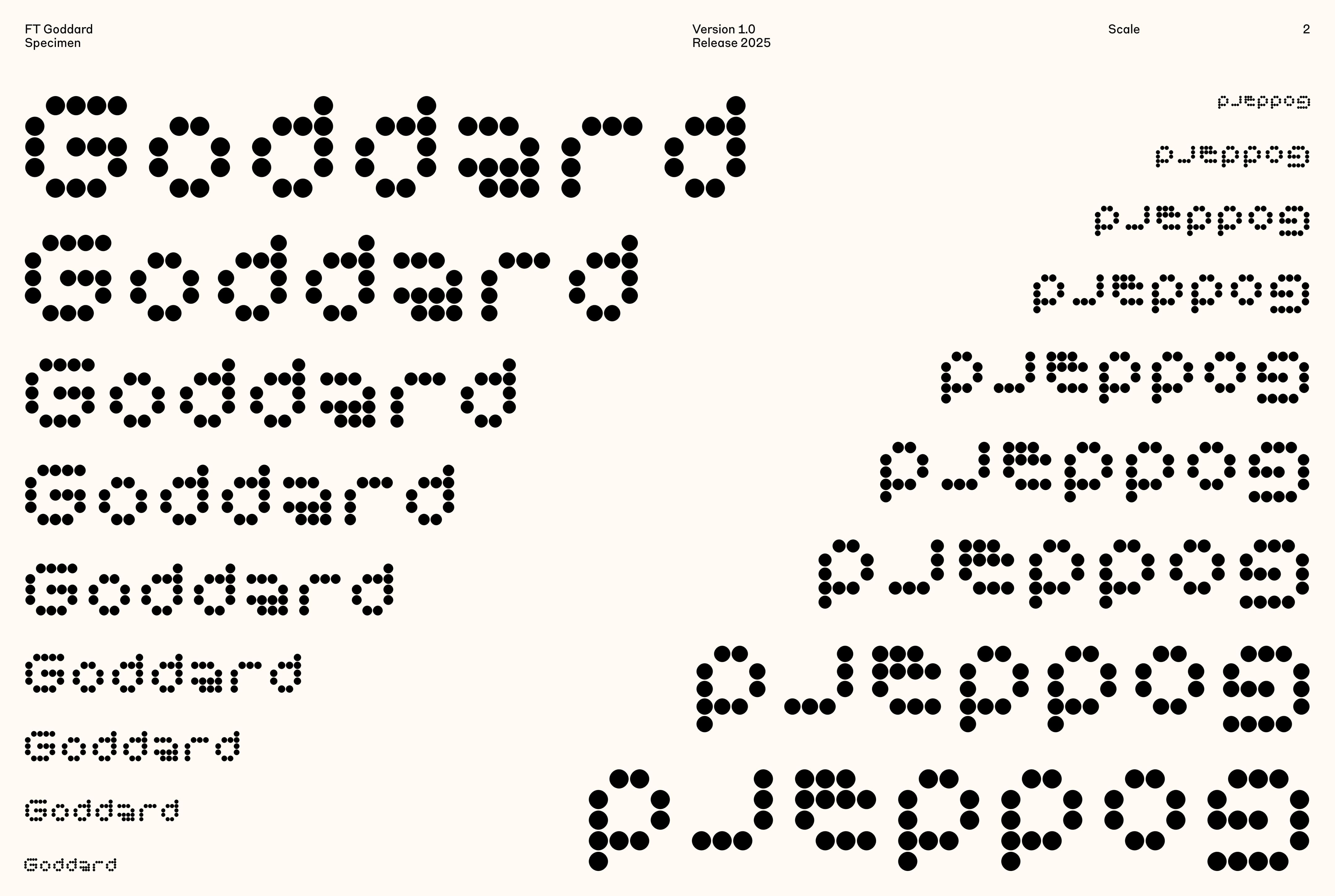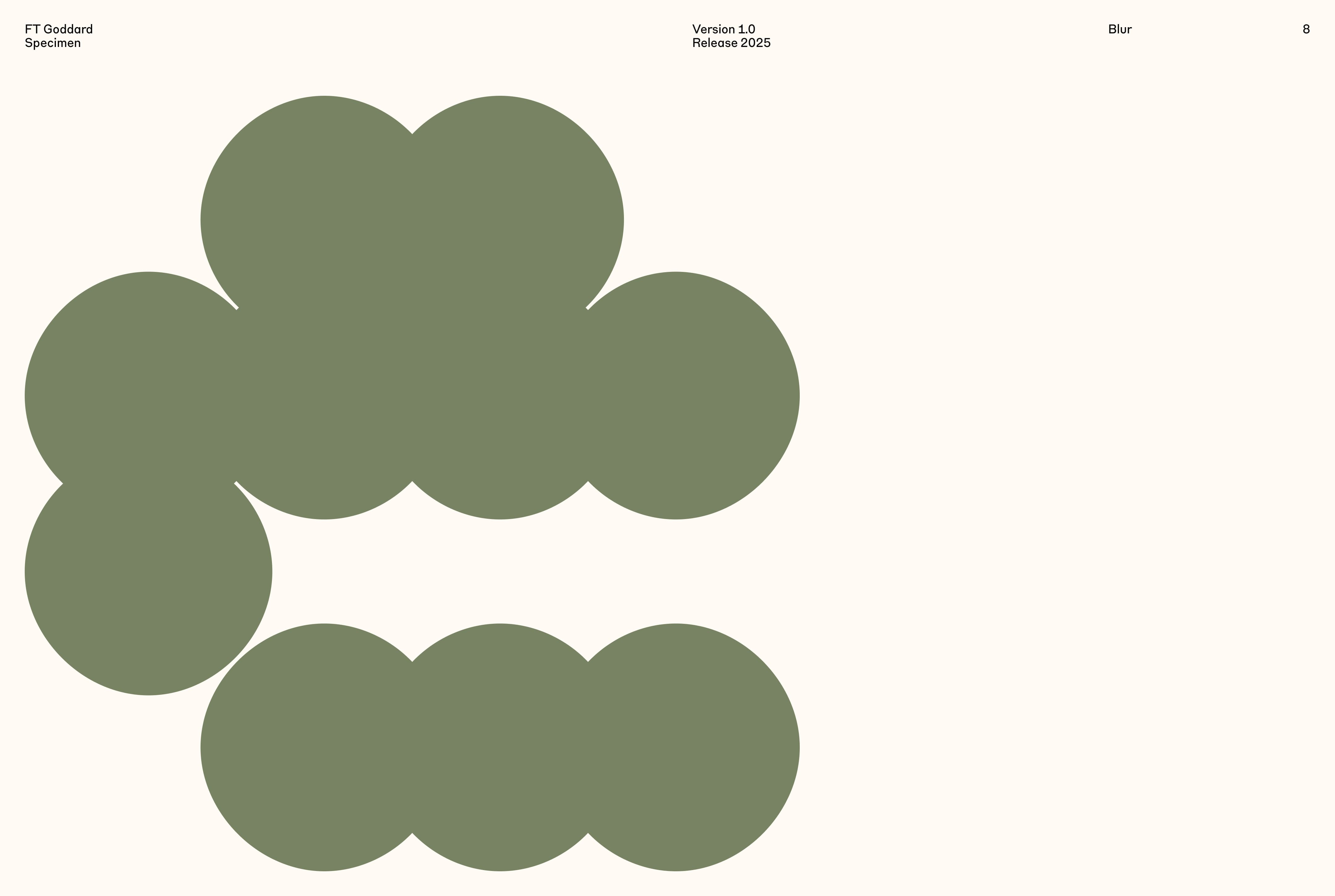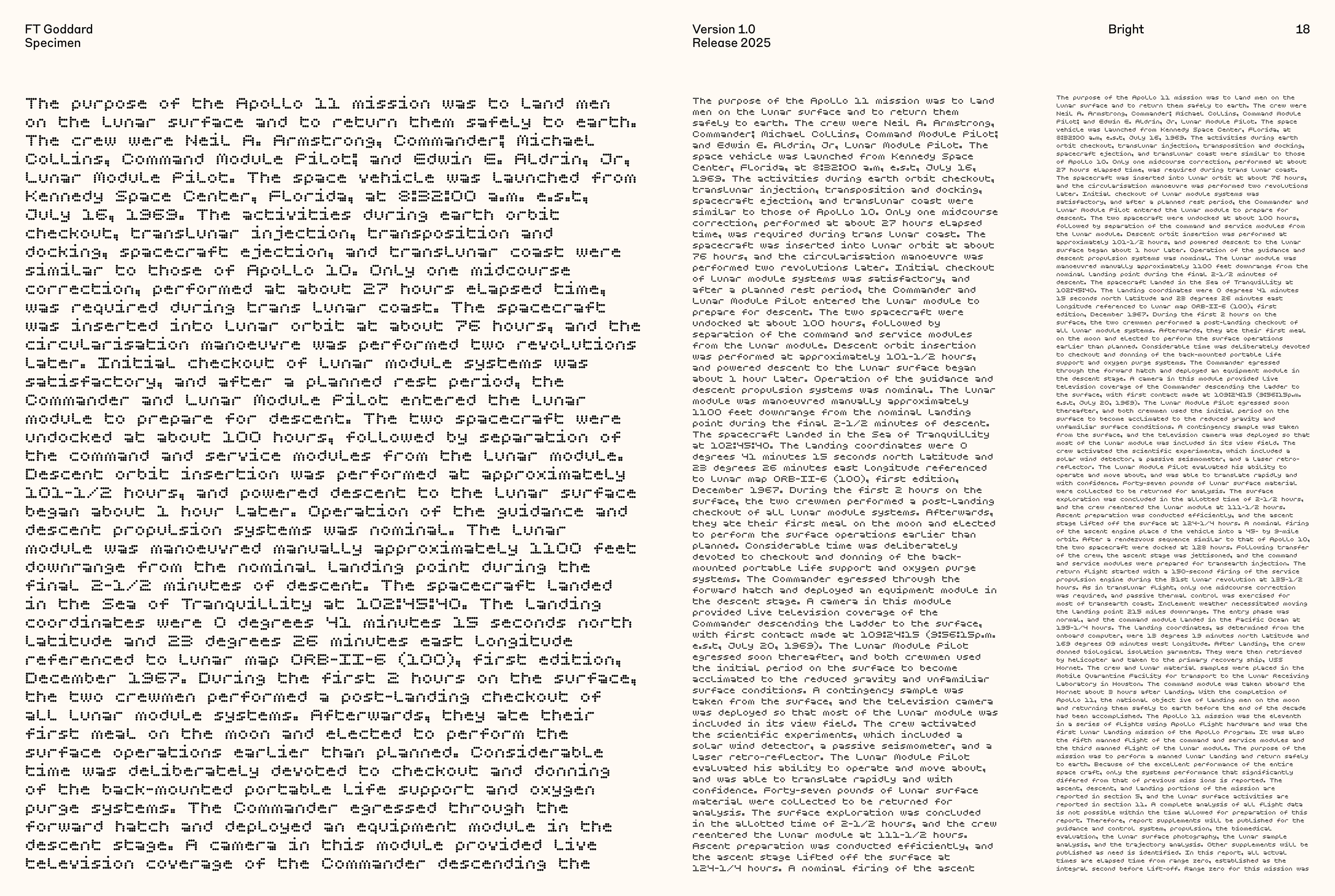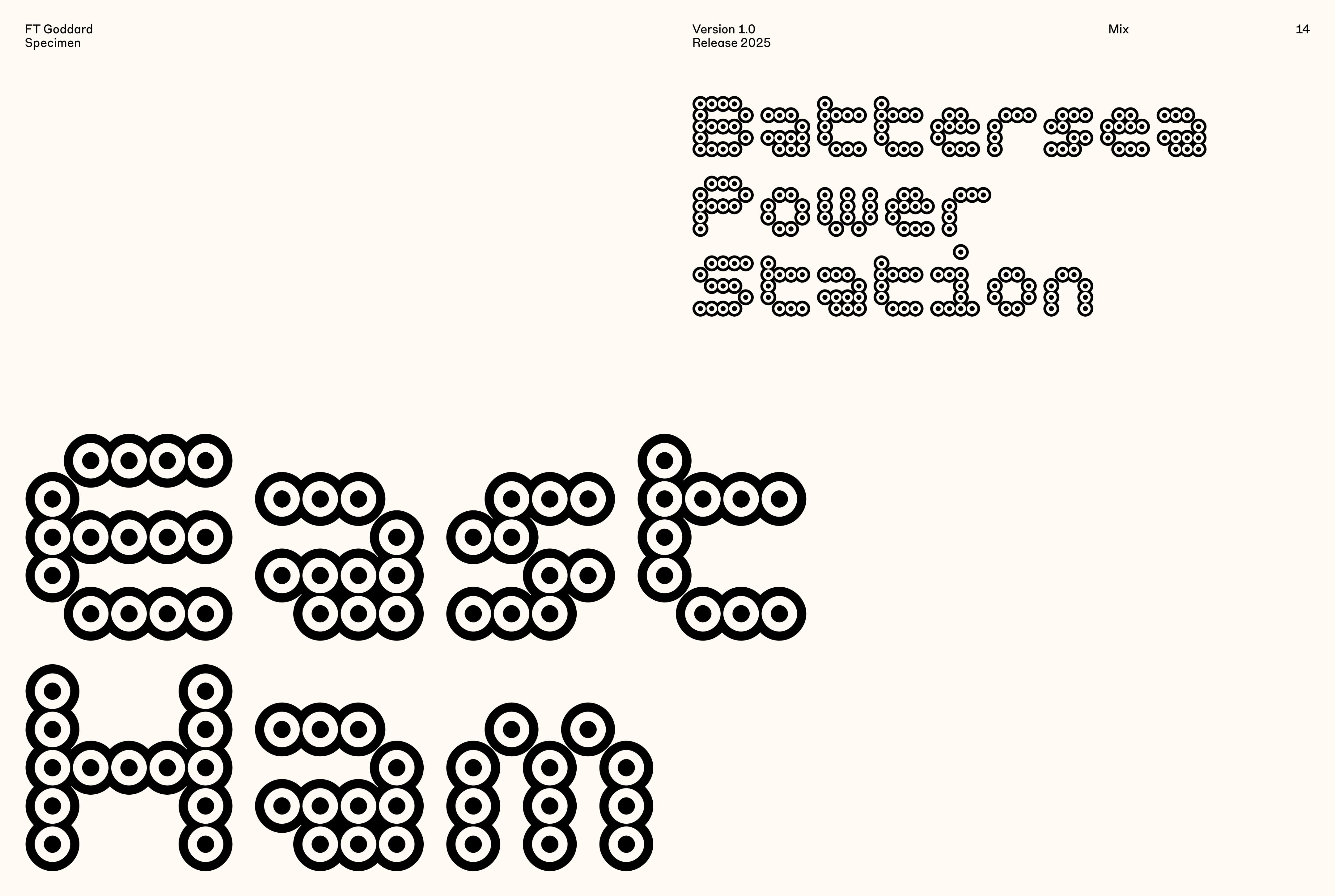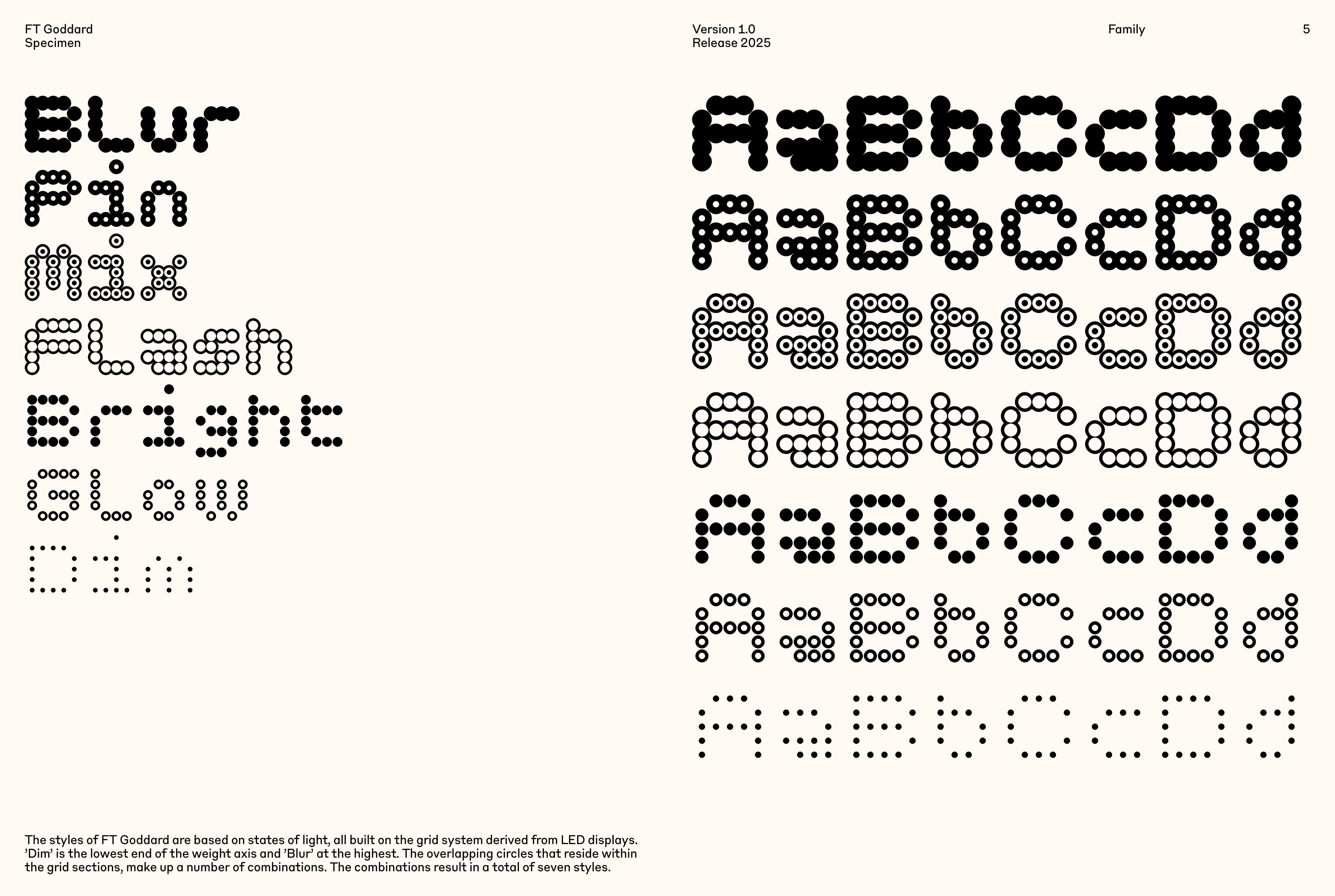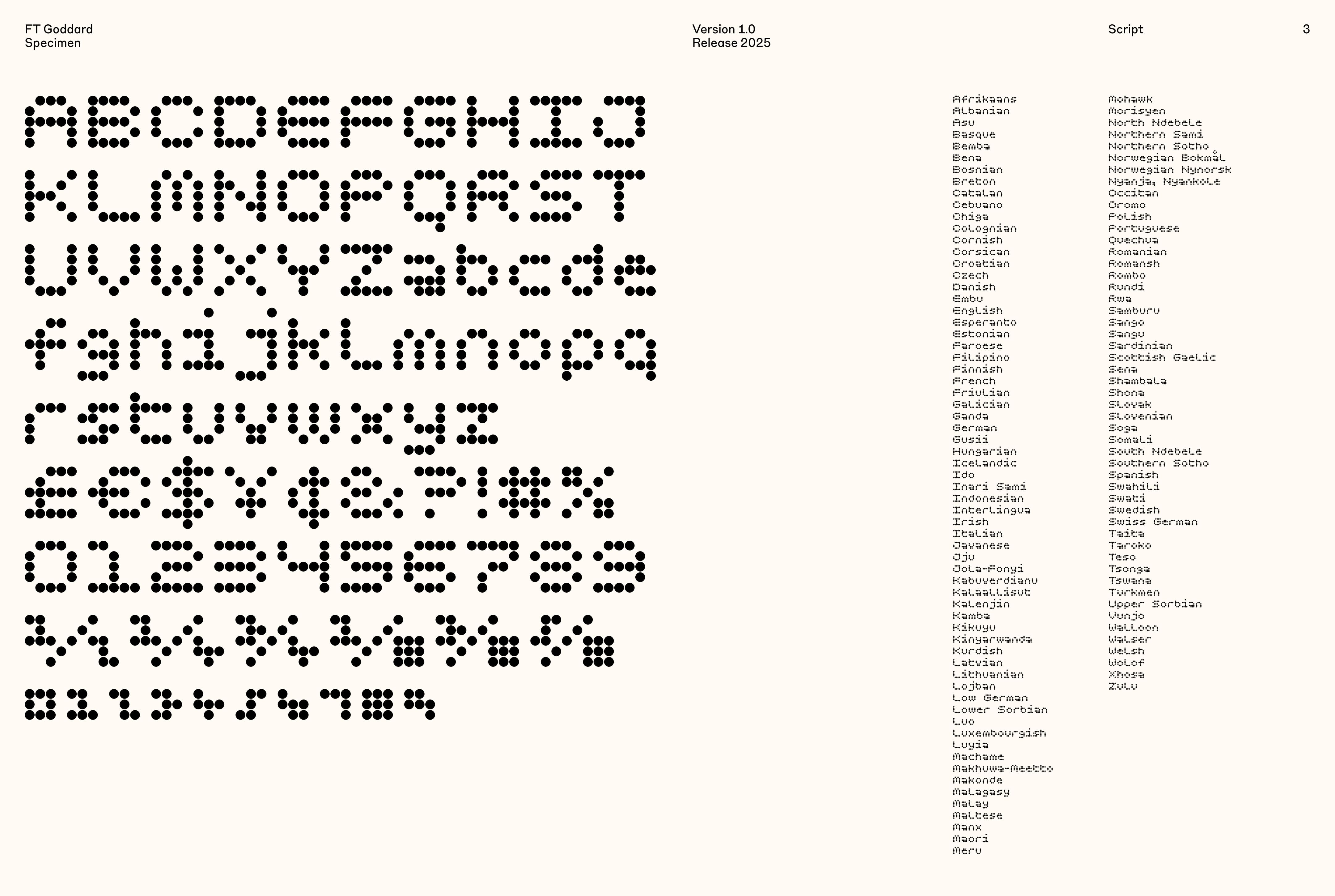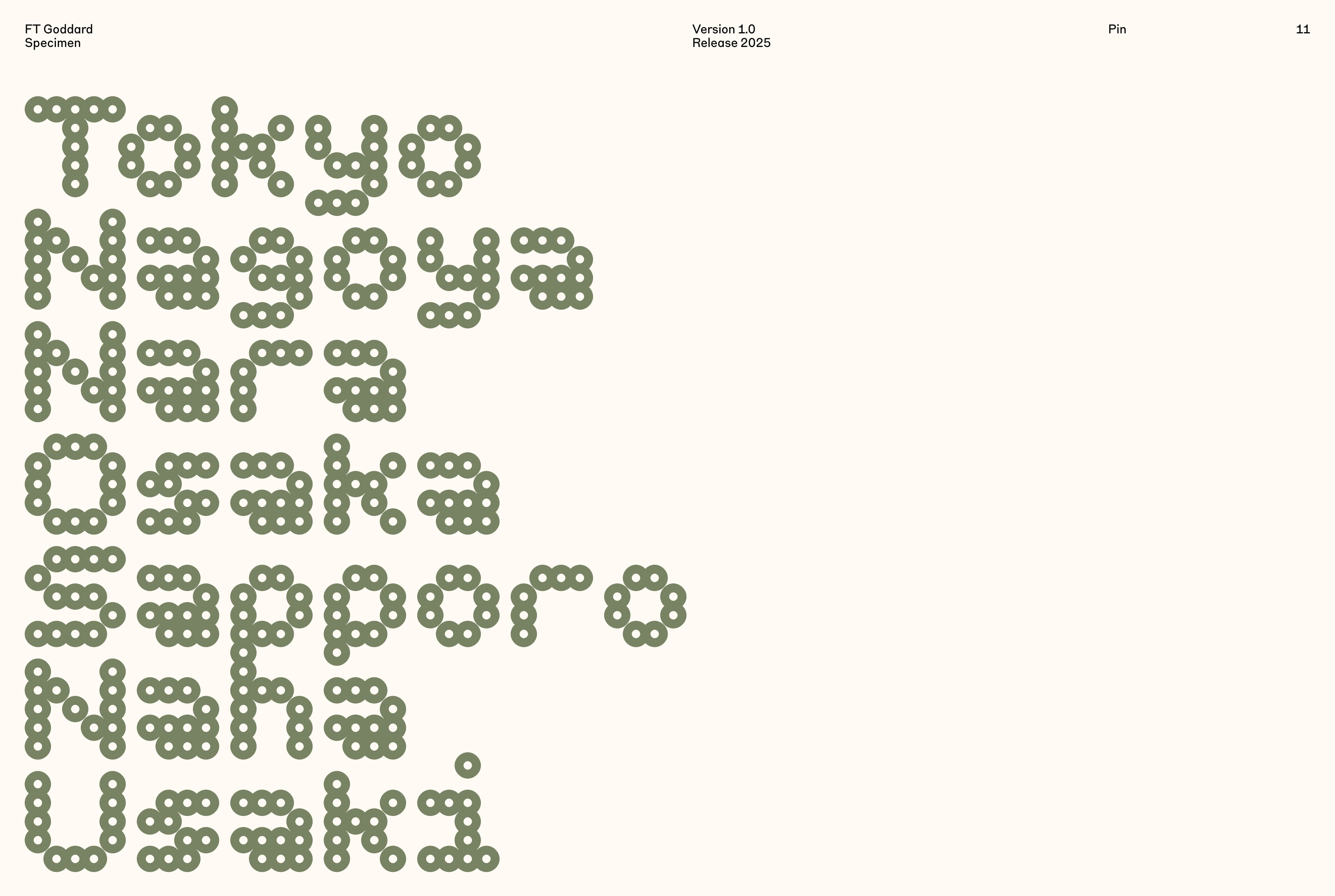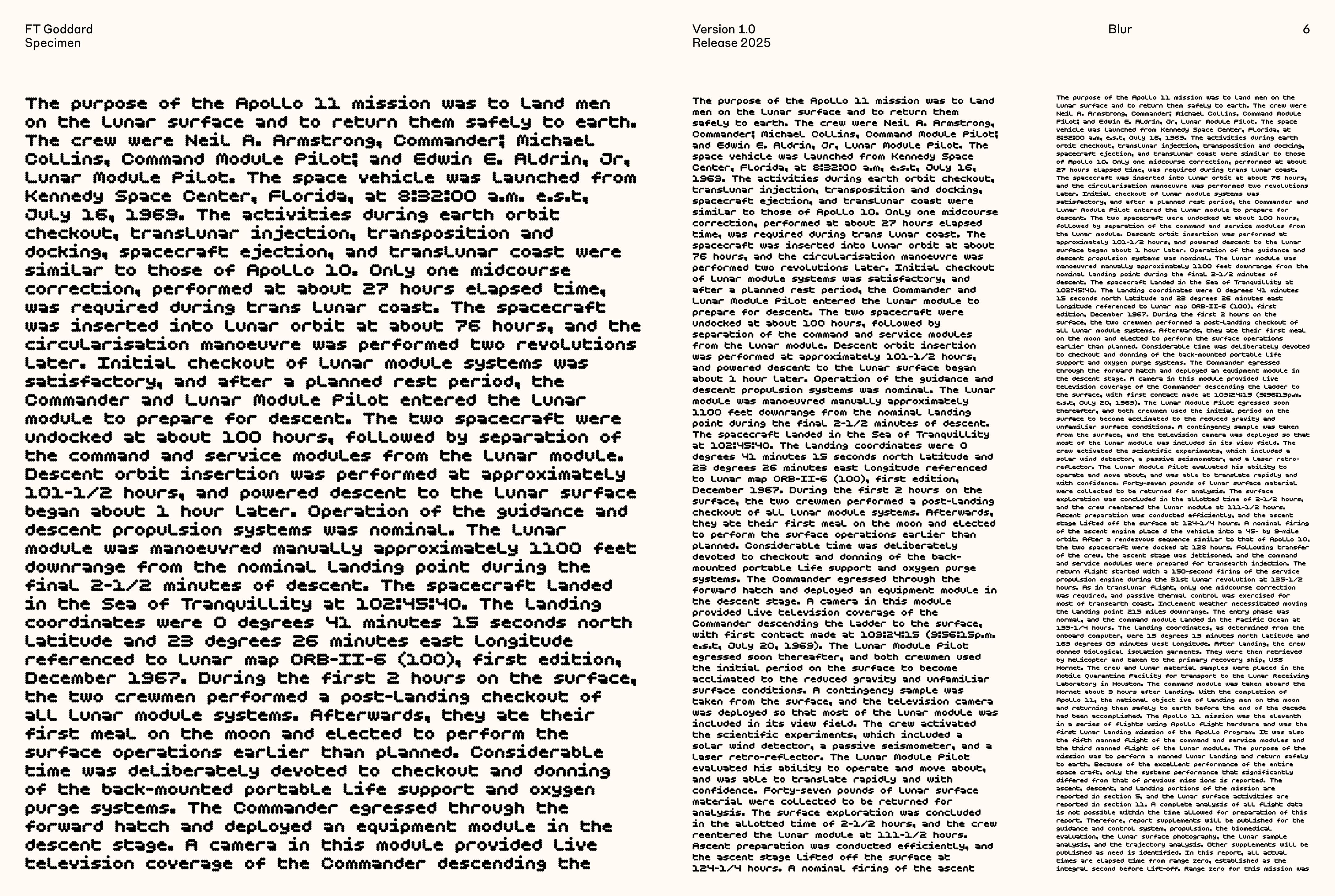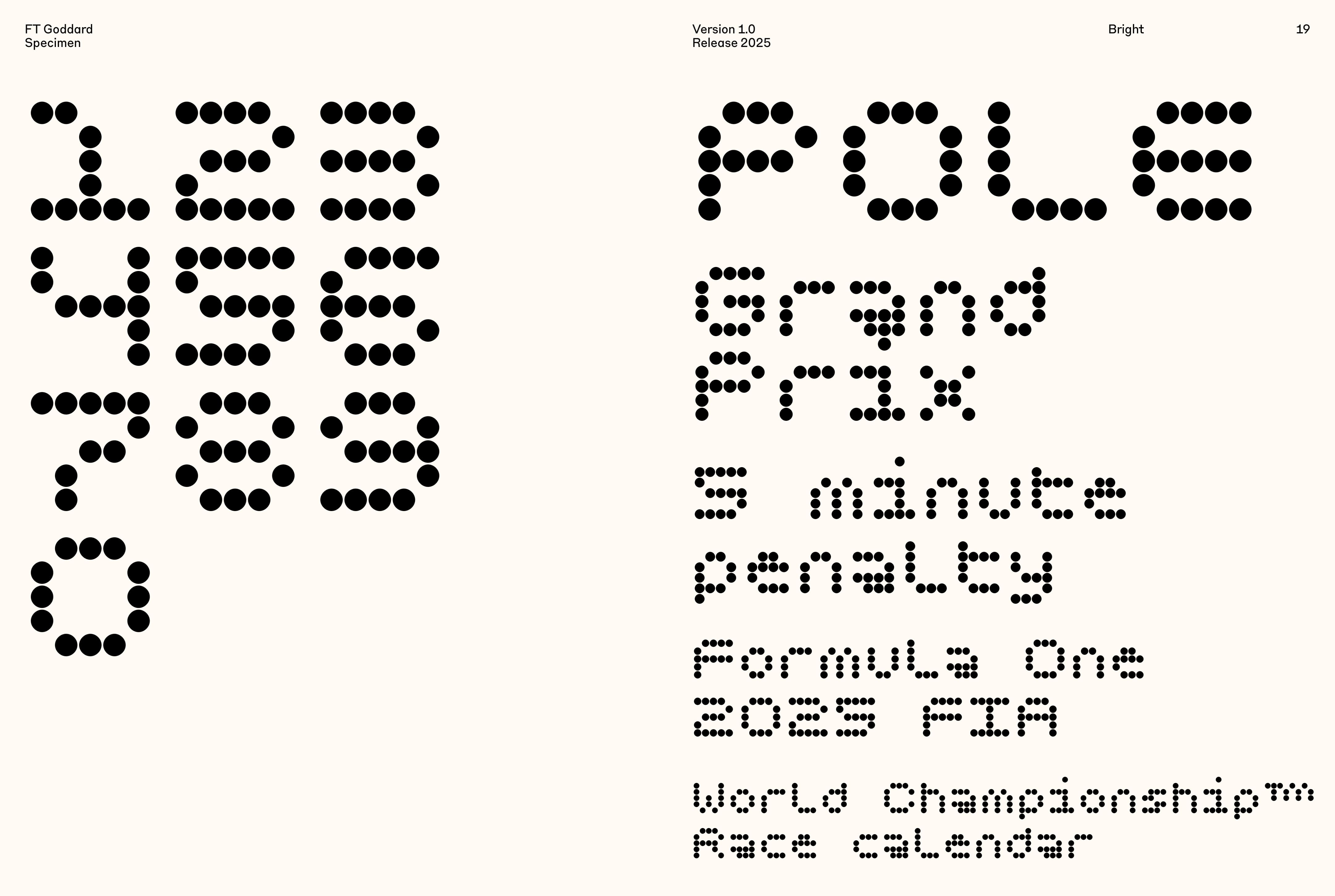
FT Goddard is the first release from FROST’s Numbers (FTNO) project. It was initially inspired by the LED matrix departure boards found across London’s tube stations. The type system began with a 5×5 dot grid used to construct the numeral set. From this foundation, the letterforms were developed to support and reflect the structural logic of the numbers. Beyond transit signage, FT Goddard also draws from the visual language of dot matrix printers, infographics, and other grid-based communication systems.
The family has three core styles: Dim, Bright, and Blur. Each represents a different state of light and clarity. Four intermediate styles, Glow, Flash, Mix, and Pin, support the core and blend or extend it. All styles are built on the same grid, which ensures consistent mono-width spacing and easy interchangeability. Bright was the starting point. From there, the lighter Dim and heavier Blur were developed by scaling the size of the ellipses while keeping a shared central anchor point. This preserves cross-style consistency and mono-width alignment. The intermediate styles are formed by layering the core styles within the grid system. These hybrid forms offer a more expressive and experimental typographic palette.
Like the numerals, the capital letters are designed on a 5×5 grid. This gives both sets consistent mono-width spacing. The lowercase letters break from this strict structure in favour of optical balance. While every glyph adheres to the grid, kerning pairs can extend beyond it to harmonise spacing and improve legibility.
Working within a low-resolution grid introduced clear constraints and inspired creative solutions. The rigid 5×5 framework limited specific shapes but encouraged inventive character construction. A single ellipse added or removed could completely shift a letter’s perception. Several strategies were adopted to make the most of these boundaries. These included removing counters in lowercase letters like a and e, and adjusting ellipse density along the X-axis. Each decision aimed to maximise legibility while staying true to the grid.
Rooted in functional, grid-based systems, FT Goddard is designed for user-facing applications. Its square proportions allow the core styles to render cleanly at small sizes, making them well suited to body copy and interface design. The intermediate styles introduce more texture and variation, making them ideal for headlines, titles, and larger display settings.
FT Goddard includes a comprehensive icon set. To improve usability, OpenType features support an icon ligature system. Simply type the name of an icon, and it will automatically convert into the corresponding symbol.